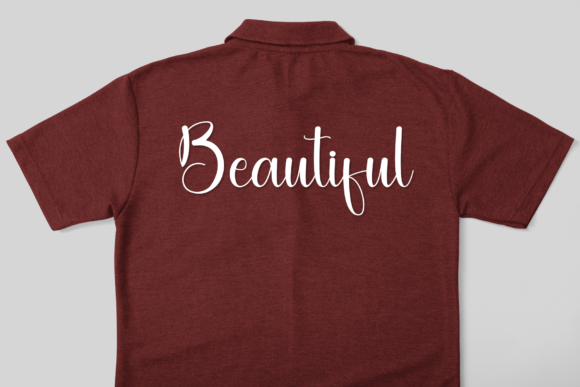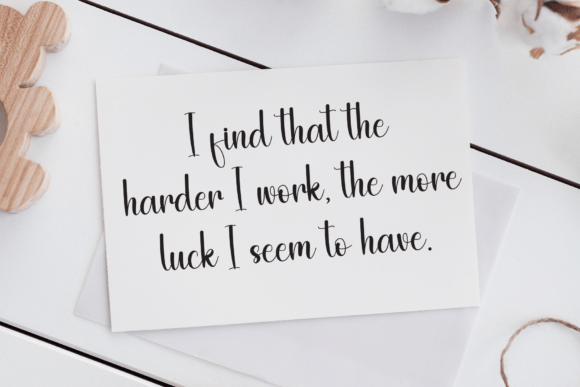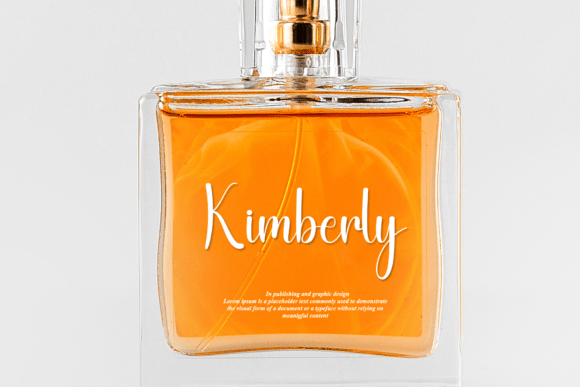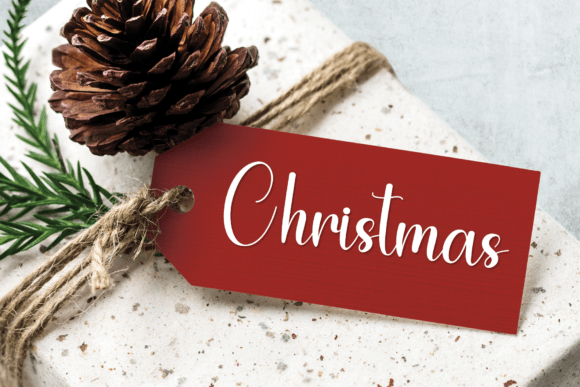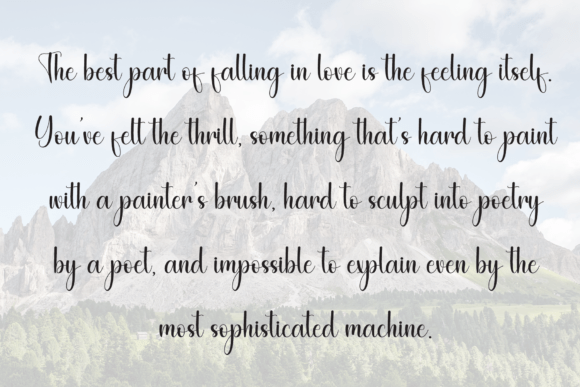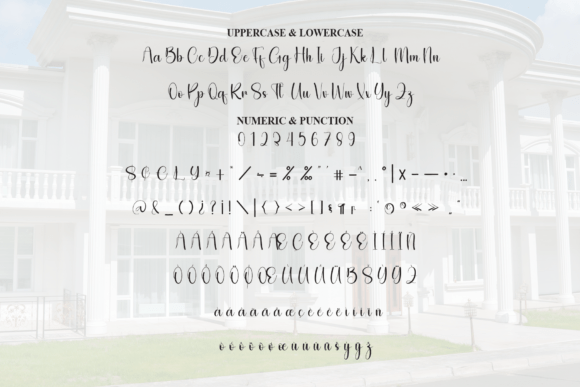
Introducing Bighome Font: The Ultimate Handwritten Script for Whimsical Designs
Have you ever been in the middle of a design project, and suddenly, you just can’t seem to find the right font? I recall a particularly frustrating experience while working on a wedding invitation project. My client wanted something that exuded warmth, joy, and a dash of playfulness. That’s when I stumbled upon Bighome Font, and it instantly became the perfect fit. In this article, we’ll dive into the enchanting world of Bighome Font and explore its features, uses, and alternatives.
A Personal Review of Bighome Font
• ✨ Warm and Friendly Vibe: Bighome Font has an irresistible charm that adds a touch of joy to any design project.
• ✅ Approachable and Adorable Style: Each stroke feels like a familiar friend, making your designs feel more personal and engaging.
• 🎉 Fun-Loving and Playful: This font is perfect for adding a dash of whimsy to your creative endeavors, making it ideal for wedding invitations, greeting cards, and more.
While Bighome Font is an amazing addition to any design project, there are a few things to keep in mind:
• 🤔 Limited Use in Formal Contexts: Due to its playful nature, Bighome Font might not be the best fit for formal documents or professional designs.
• ⚠️ Requires Attention to Kerning: As with any handwritten font, kerning can be a bit tricky. Make sure to adjust the spacing to achieve the perfect look.
The Backstory of Bighome Font
Bighome Font was designed with the intention of creating a warm and friendly font that would bring joy to designers and their clients. The designer aimed to create a font that felt approachable and adorable, perfect for adding a touch of whimsy to any design project. The result is a font that exudes a sense of playfulness and friendliness, making it perfect for wedding invitations, greeting cards, and more.
Q: What type of projects is Bighome Font best suited for?
A: Bighome Font is perfect for wedding invitations, greeting cards, and any design project that requires a touch of whimsy and playfulness.